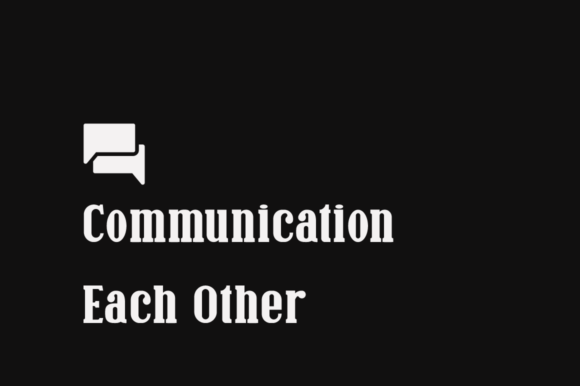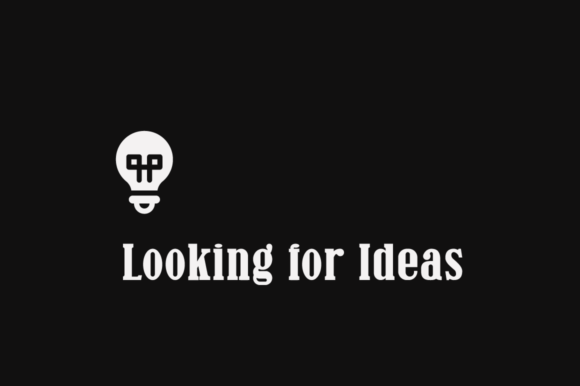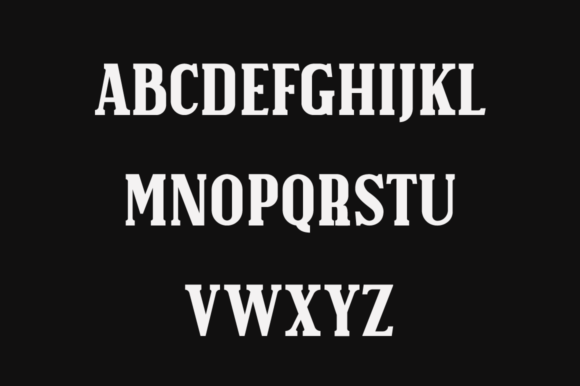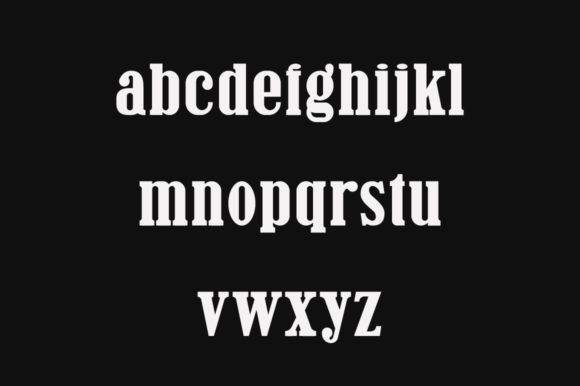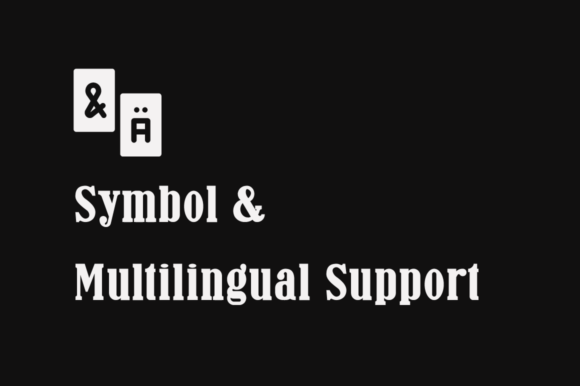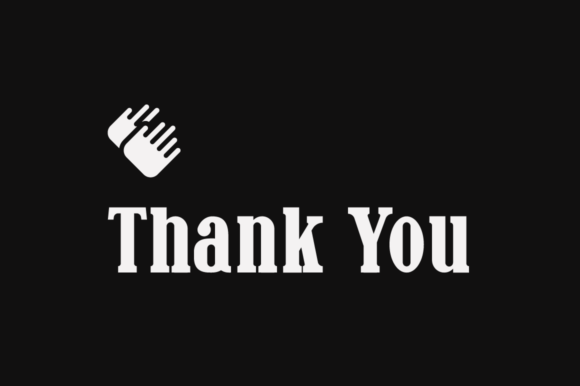
Ekim Mezunu Font: Elevate Your Designs with this Stunning Serif Font
Are you a designer or crafter looking for a font that can take your creative projects to the next level? Look no further than Ekim Mezunu, a beautifully designed serif font that is sure to become a favorite in your collection. In this article, we’ll take a closer look at Ekim Mezunu, its features, and how you can use it to elevate your designs.
What is Ekim Mezunu?
Ekim Mezunu is a serif font that is both elegant and condensed, making it perfect for a variety of design projects. Its masterful design ensures that it stands out from the crowd, and its versatility means that it can be used in a range of contexts, from logos and branding to packaging and advertising.
Key Features of Ekim Mezunu
So, what makes Ekim Mezunu such a great font? Here are just a few of its key features:
- Serif design: Ekim Mezunu’s serif design gives it a classic, sophisticated look that is perfect for designs that require a touch of elegance.
- Condensed style: The font’s condensed style makes it ideal for designs where space is limited, such as in logos, headings, and titles.
- High legibility: Despite its condensed style, Ekim Mezunu remains highly legible, even at small sizes.
- Versatility: Ekim Mezunu can be used in a wide range of design projects, from print to digital.
How to Use Ekim Mezunu in Your Designs
Now that we’ve covered the features of Ekim Mezunu, let’s take a look at how you can use it in your designs.
Branding and Logos
Ekim Mezunu is a great choice for logos and branding projects, thanks to its unique and memorable design. Its serif style gives it a classic look that will help your brand stand out, while its condensed style ensures that it won’t take up too much space.
Packaging and Advertising
Ekim Mezunu is also a great choice for packaging and advertising projects. Its high legibility and classic design make it perfect for product labels, flyers, and brochures.
Digital Designs
Ekim Mezunu can also be used in digital designs, such as website headers, social media graphics, and email marketing campaigns. Its versatility and legibility make it a great choice for a wide range of digital applications.
Tips for Getting the Most out of Ekim Mezunu
Here are a few tips for getting the most out of Ekim Mezunu:
- Experiment with different sizes: Ekim Mezunu’s condensed style makes it perfect for small sizes, but it can also be used at larger sizes for maximum impact.
- Pair it with other fonts: Ekim Mezunu can be paired with a range of other fonts to create interesting and dynamic designs.
- Use it consistently: To get the most out of Ekim Mezunu, use it consistently across your designs to create a cohesive look.
Ekim Mezunu is a stunning serif font that is sure to become a favorite in your collection. Its elegant design, condensed style, and high legibility make it perfect for a wide range of design projects, from logos and branding to packaging and advertising. With its versatility and masterful design, Ekim Mezunu has the potential to bring each of your creative ideas to the highest level. So why not give it a try and see the difference it can make in your designs?